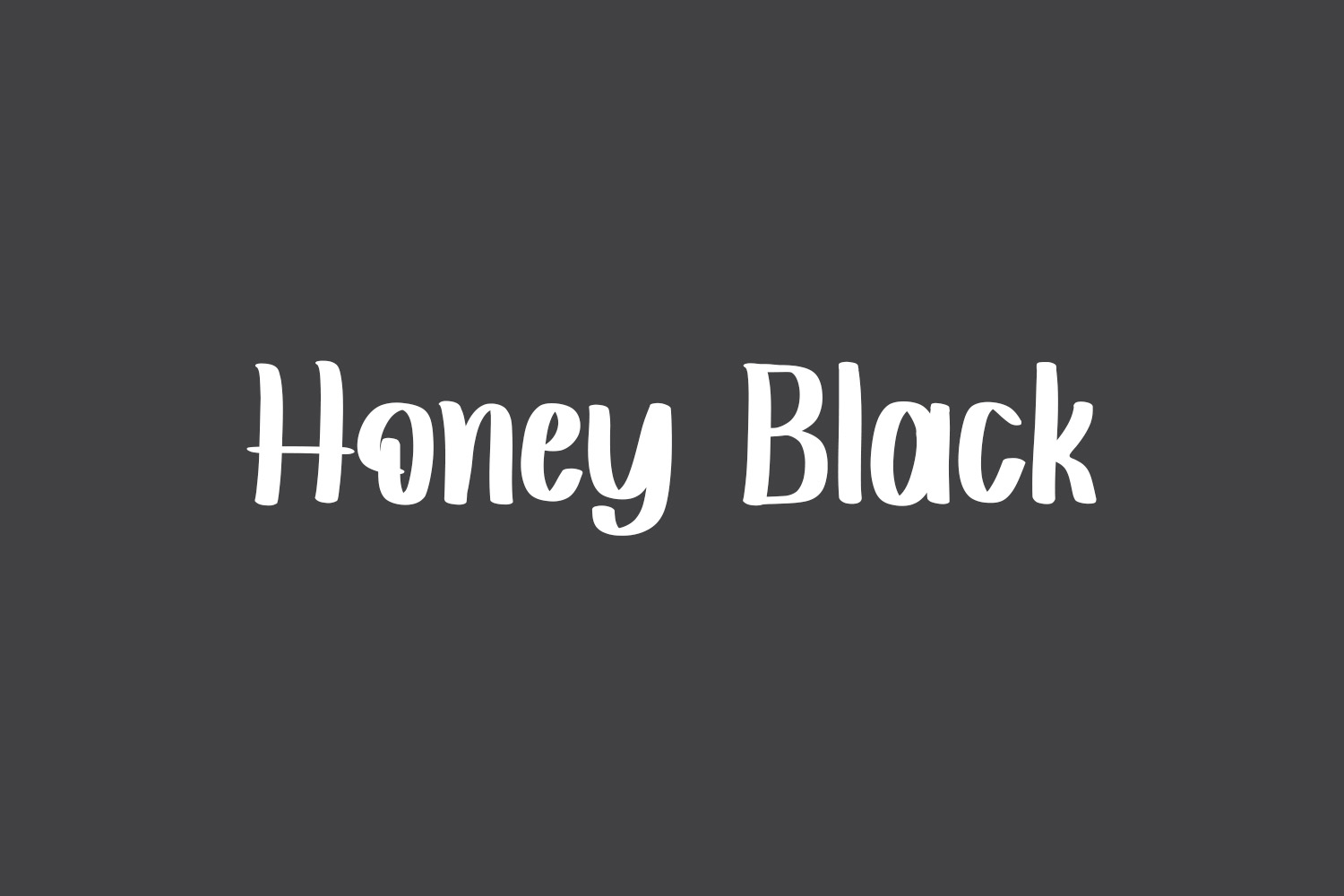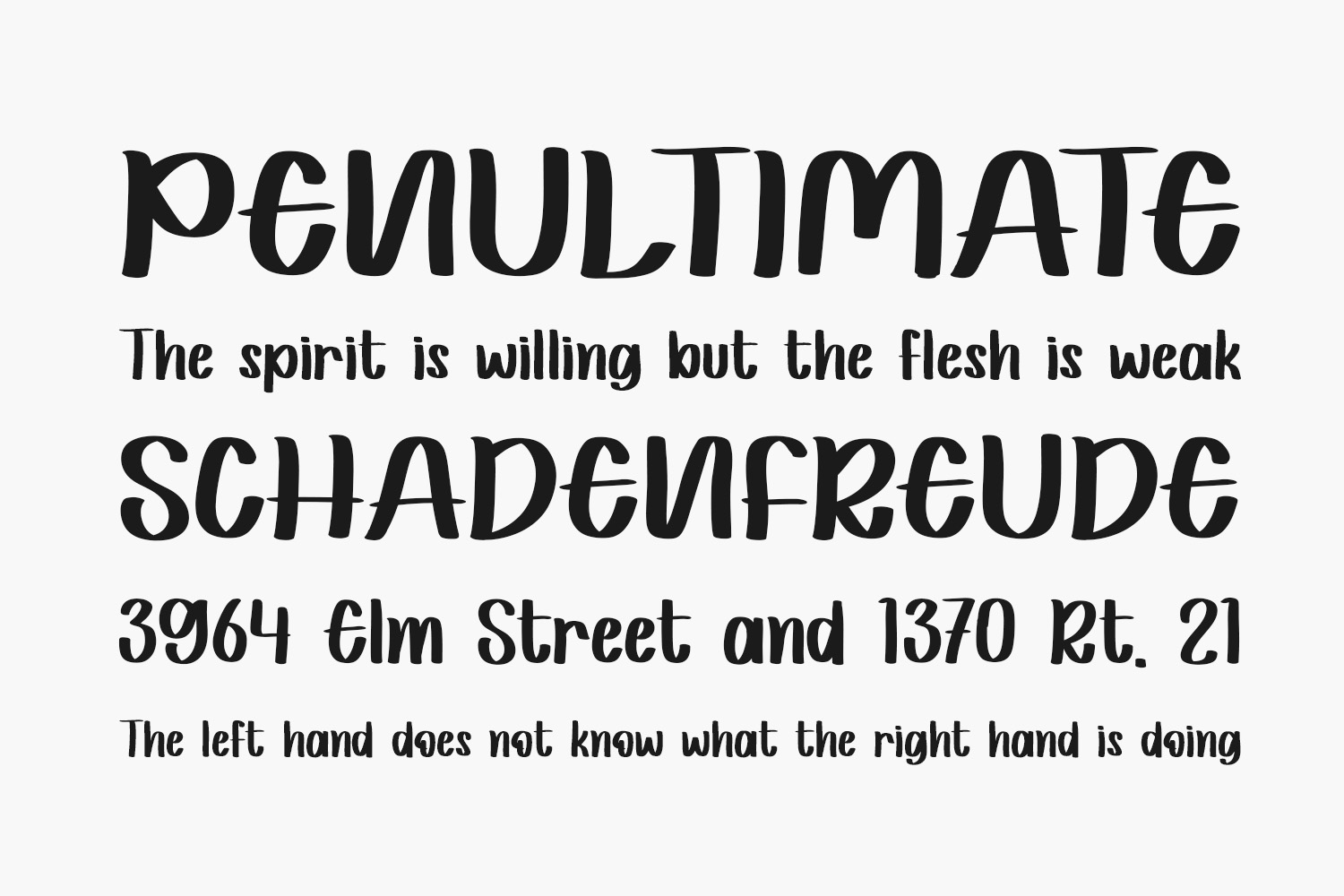
Meet Honey Black Free Font, a playful and laid-back display font. Whether it’s for any theme or purpose, this font is a fantastic addition to your font collection, offering the potential to enhance the impact of any creative endeavor. Honey Black Free Font is free for personal use only. Please purchase the full version for commercial use.
Designed by Letterafa Studio